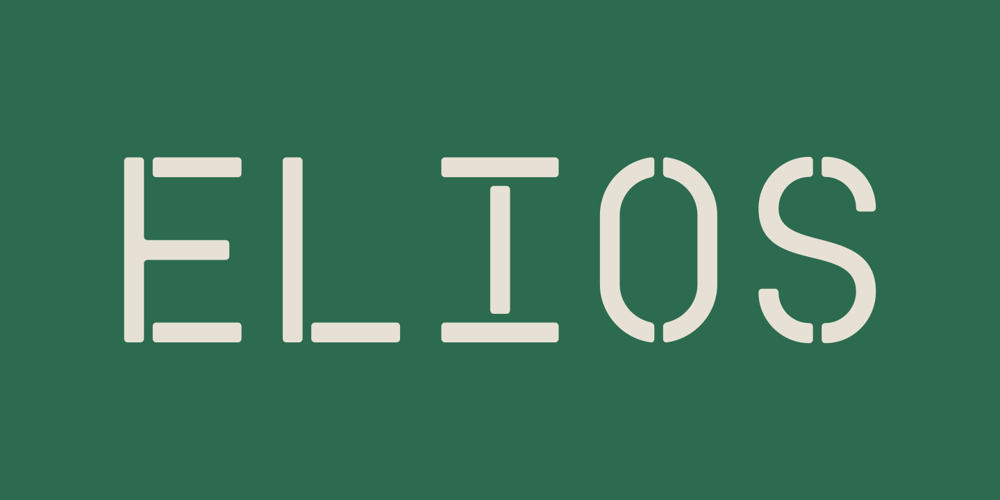
Elios Font Family was designed by Radinal Riki and published by ATK Studio. Elios contains 1 styles and family package options. Elios™ is a stencil display typeface with a strong personality. It comes with all caps letters and monospaced with rounded edges. This font come with single weight and character set that covers over 100 latin languages. Elios™ is perfect for poster, headlines, short texts, branding and other display use.